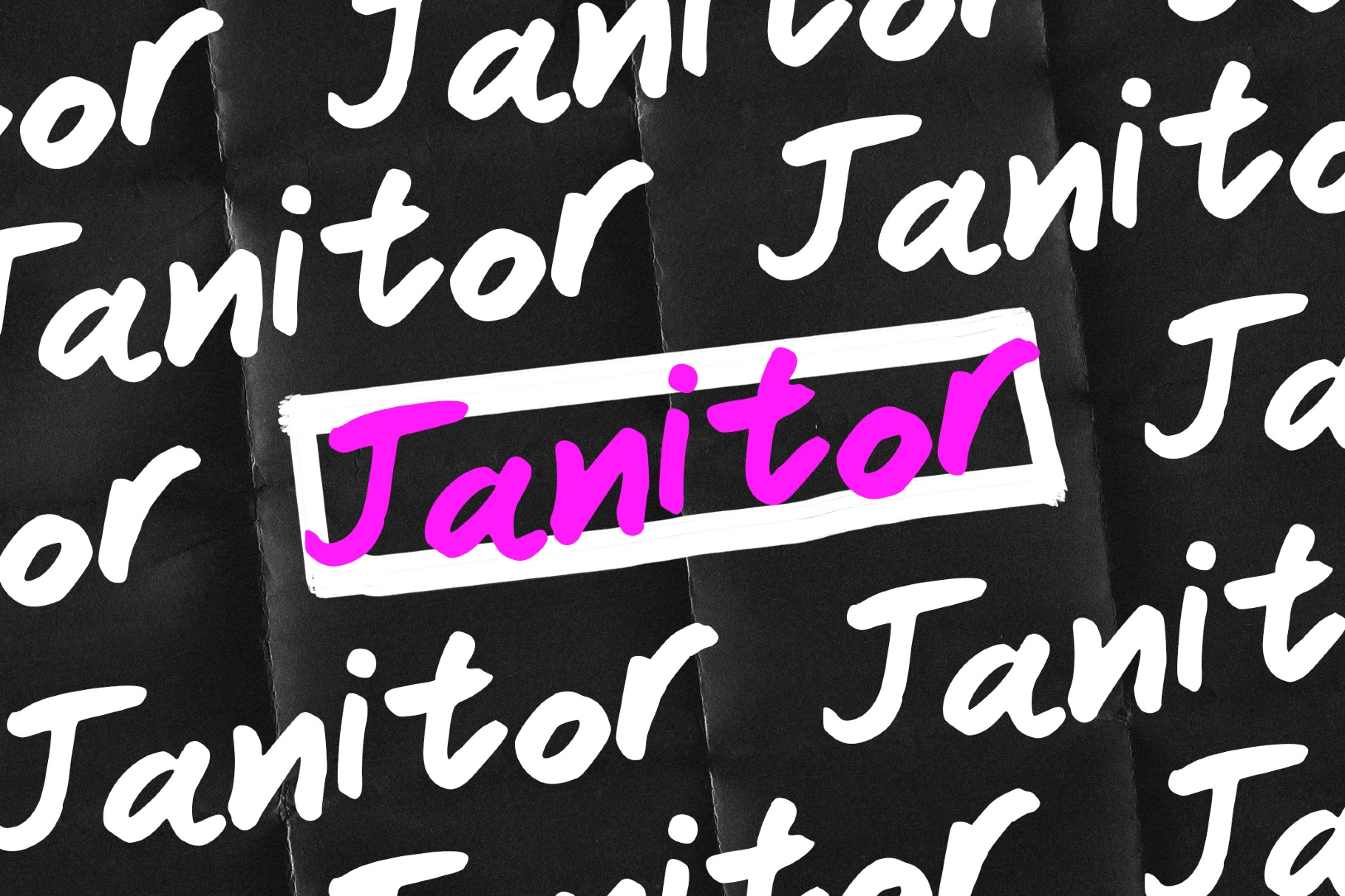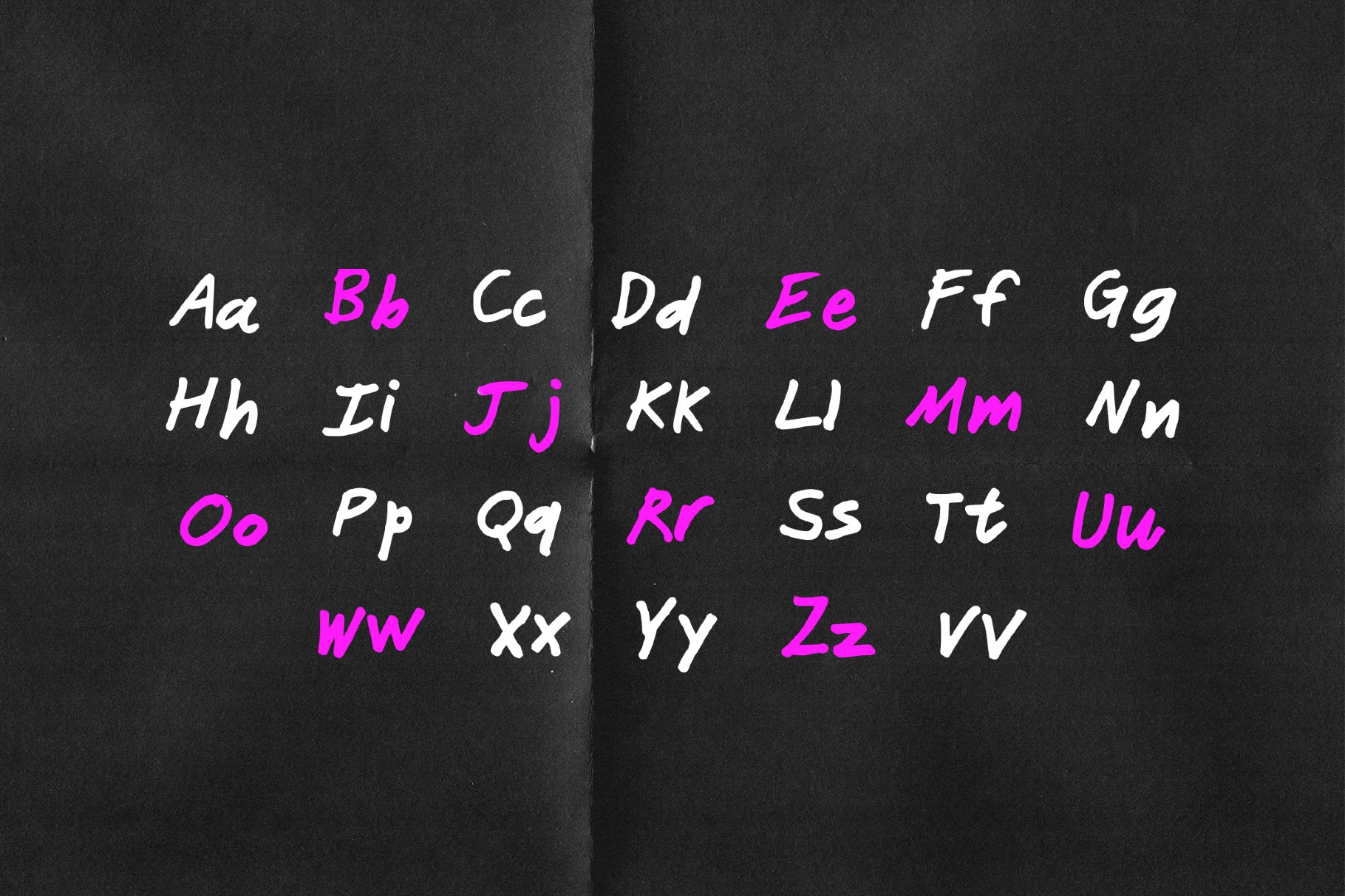
Janitor Marker Font
Janitor
Janitor is a rough, hand-lettered font with scuffed strokes, like from punk flyers and photocopied workshop notices. It lands best on poster headlines, band merch, magazine covers, sticker graphics, gritty packaging badges, game title cards, edgy branding, and attention-grabbing social media artwork.